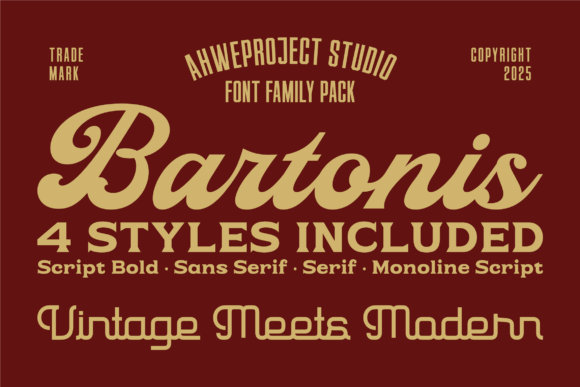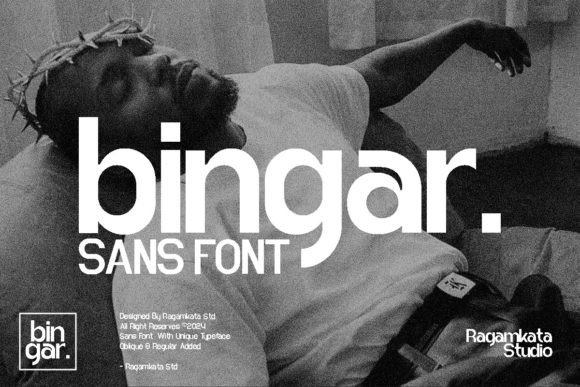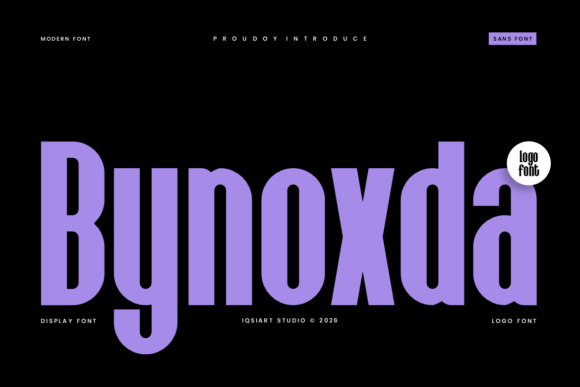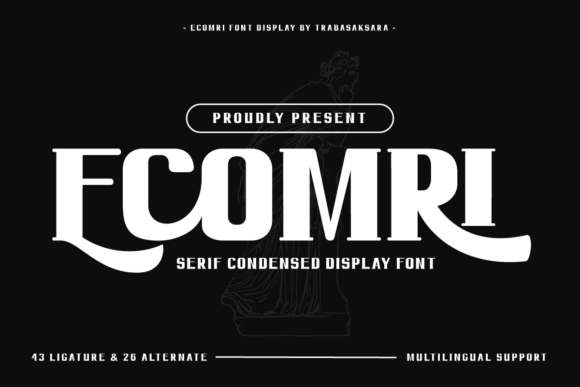
20 Best Logo Fonts for Any Brands You Need in 2026
Choosing the right logo font can make or break your brand identity. In 2026, design trends are evolving faster than ever, and typography plays a crucial role in how your brand is perceived. Whether you’re building a modern startup, a luxury label, or a playful creative brand, the font you choose sets the tone before a single word is read. In this guide, we’ve curated 20 of the best logo fonts that combine style, versatility, and personality—perfect for any brand looking to stand out and stay relevant.
1. MILDEN – Elegant Serif Font for Fashion Brands
MILDEN is a refined serif font that adds a luxurious, stylish touch to any design. It’s a perfect choice for fashion logos and high-end branding. With a variety of alternative characters, MILDEN offers flexibility for logos, magazines, typography, and advertising—making it a versatile option for modern brand design in 2026
2. Ecomri – Modern Eye-Catching Font for Impactful Branding
Ecomri is a dynamic and attention-grabbing typeface designed to instantly capture your audience’s attention. With its modern and versatile style, it’s perfect for creating bold logos and memorable brand identities.
Ideal for branding, advertising, and digital design, Ecomri offers a unique typography solution for brands that want to stand out in 2026.
3. Bartonis – Versatile Vintage Font Family for Retro Branding
Bartonis is a vintage font family that combines classic charm with a clean modern feel. Its bold, smooth letterforms and elegant curves create a nostalgic yet stylish look, perfect for memorable branding.
This pack includes four matching styles—Script Bold, Sans Serif, Serif, and Monoline Script—allowing you to mix and match for cohesive logo design, packaging, and typography. Ideal for logos, labels, merchandise, and social media, Bartonis is a versatile choice for retro-inspired brands in 2026.
4. Bingar – Modern Sans Serif Display Font for Elegant Branding
Bingar is a modern sans serif display font with smooth curves and a clean, elegant style that makes any design look polished and eye-catching.
Supporting both uppercase and lowercase, it’s perfect for logos, headings, invitations, branding, packaging, and editorial design. Bingar is a versatile choice for creating stylish and professional visuals across a wide range of projects in 2026.
5. Manipulative – Elegant Sans Serif Font with Strong Character
Manipulative is a modern sans serif typeface with a bold, elegant style that gives your designs a unique and attractive look. Its strong character makes it ideal for standout logos and branding.
With built-in alternatives and subtle inward curves on select letters, this font adds a distinctive and friendly touch. Perfect for logos, badges, web design, and magazines, Manipulative is a versatile choice for creative projects in 2026.
6. Navara – Elegant Typeface for Creative Branding
Navara is a modern, elegant typeface with a strong visual character that makes any design stand out. Its refined style adds a unique and attractive touch to logos and branding. With multiple alternates and subtle inward curves on certain letters, Navara offers a distinctive, friendly personality. Perfect for posters, web graphics, logos, and more, it’s a versatile font for creative projects in 2026.
7. Bynoxda – Ultra-Condensed Font for Bold Modern Logos
Bynoxda is a striking ultra-condensed sans serif font designed for maximum vertical impact and modern sophistication. Its tall, narrow proportions make it perfect for creating powerful headlines and logo designs, even in limited space.
Ideal for editorial layouts, high-fashion branding, and posters, Bynoxda embraces the “big typography” trend. This statement font adds a bold, architectural feel to any design, making it a standout choice for brands in 2026.
8. Kalceron – Bold Retro Font for Vintage Branding
Kalceron is a bold sans serif font inspired by vintage signage, posters, and movie titles from the 70s and 80s. Its retro style brings a vibrant, eye-catching look to any design.
Perfect for logos, branding, apparel, posters, and merchandise, Kalceron adds a nostalgic yet powerful touch—ideal for standout retro designs in 2026.
9. Opinio – Minimal Modern Sans Serif Font for Elegant Branding
Opinio is a clean and modern sans serif font with a minimal, elegant aesthetic. Its thin lines and geometric structure make it perfect for contemporary branding and refined logo design.
Lightweight and highly readable, Opinio works beautifully for editorial layouts, UI/UX design, packaging, and social media graphics. A timeless choice for professional and minimal typography projects in 2026.
10. Pogonia – Modern Geometric Sans Serif Font
Pogonia is a modern aesthetic sans serif font that blends geometric and humanist styles, creating a clean and versatile look with timeless appeal. Perfect for logos, posters, fashion branding, websites, and social media designs, Pogonia delivers simplicity and elegance for a wide range of creative projects in 2026.
Finding the perfect logo font isn’t just about aesthetics—it’s about creating a visual voice that resonates with your audience. The right typography can instantly communicate your brand’s values, mood, and professionalism. As you explore these top logo fonts for 2026, think about how each one aligns with your brand story and long-term vision. A great font doesn’t just look good today—it grows with your brand tomorrow..